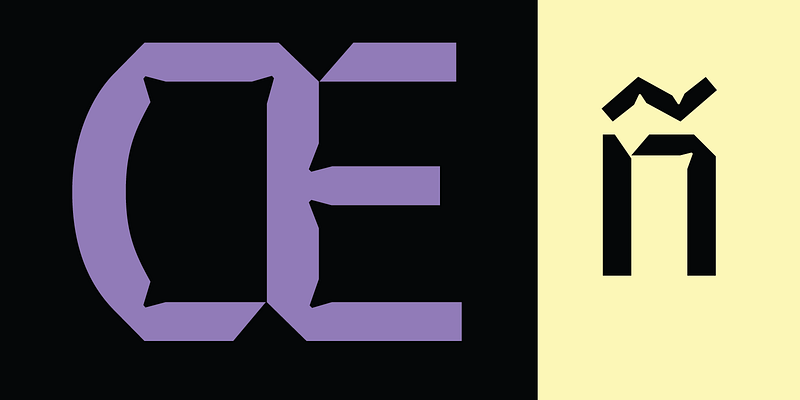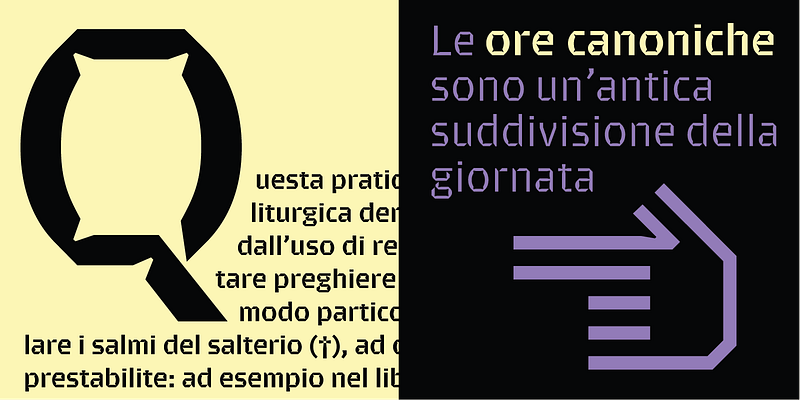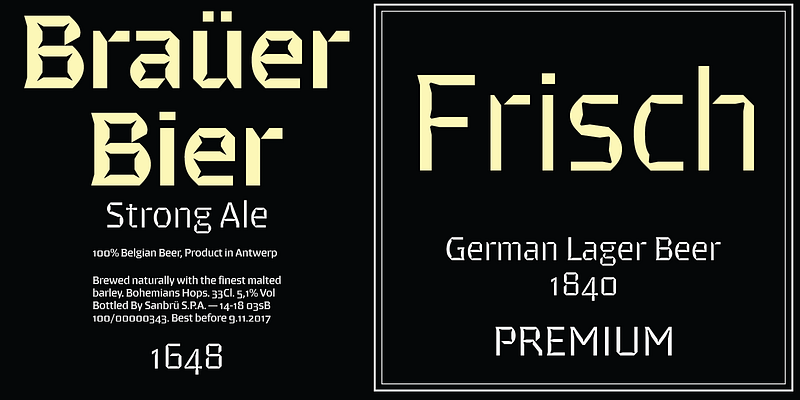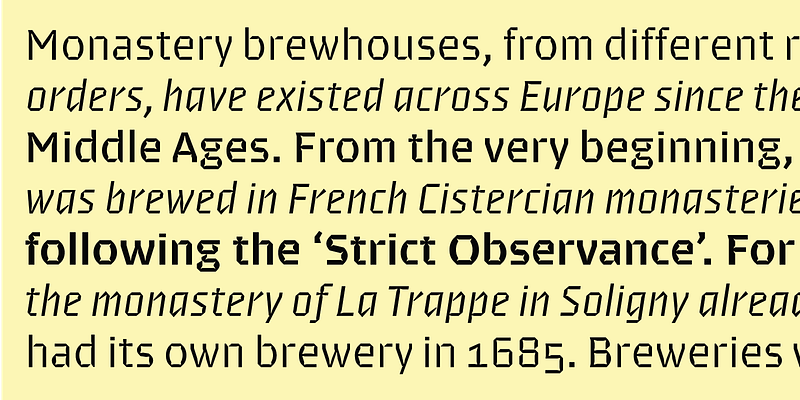
Brevier, a compact sans, is lean and rhythmical, designed to be used at less than 8 points (Brevier was the old typefounders’ name for 8-pt type), it holds up well under adverse printing conditions.